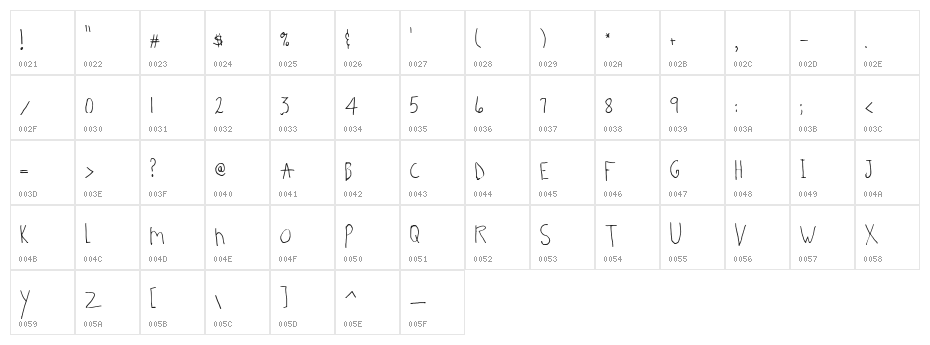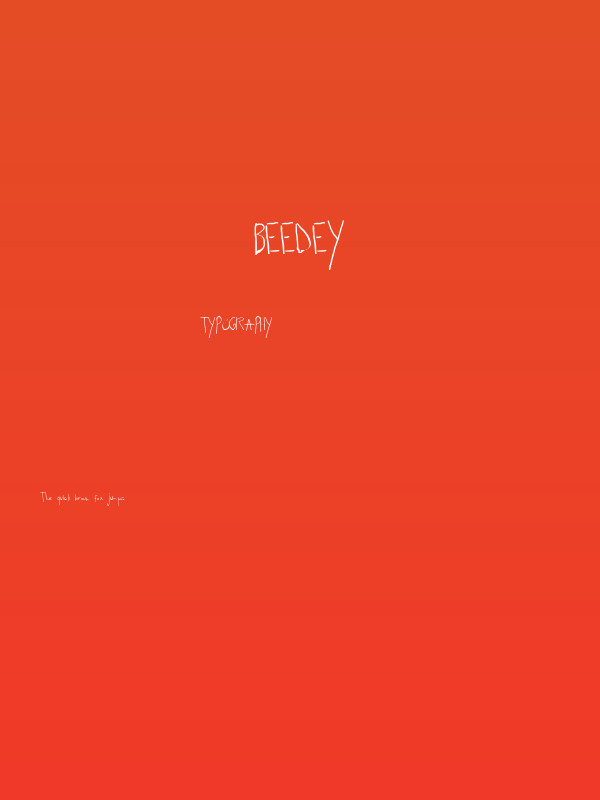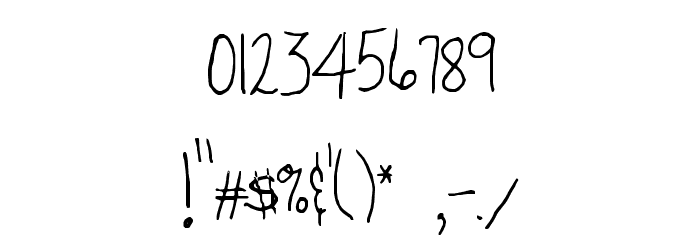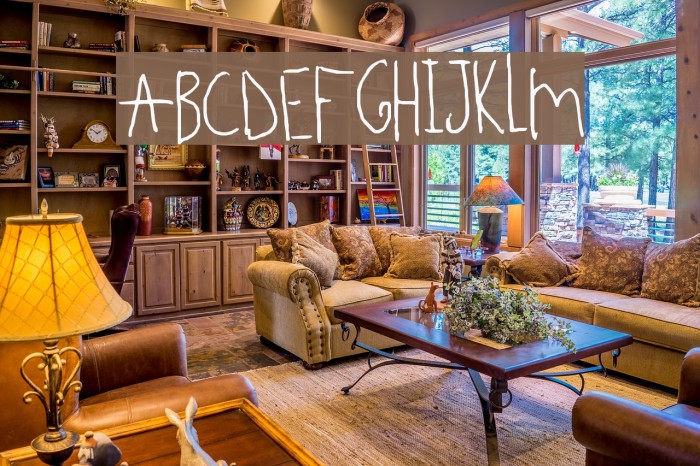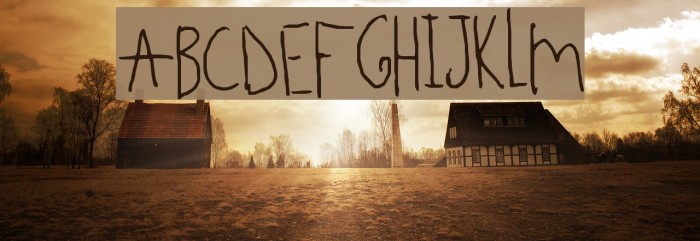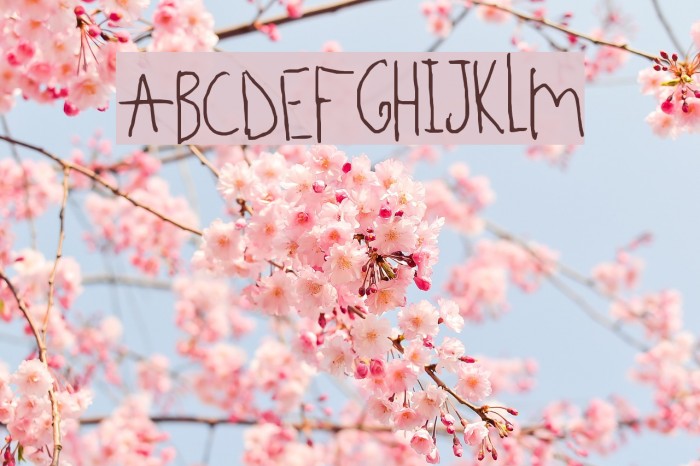
Beedey Font
Beedey Description
This font exudes a playful and casual handwritten style, characterized by its irregular and slightly whimsical letterforms. The strokes are uneven, giving it a natural and organic feel, reminiscent of quick, informal handwriting. The uppercase letters are tall and narrow, while the lowercase letters maintain a consistent flow with occasional loops and curves that add to its charm. Numbers and special characters follow the same playful aesthetic, making it suitable for projects that require a personal touch. The overall appearance is friendly and approachable, ideal for creative and informal applications.
| Overall Style | Casual, Playful |
| Use Case | Headlines, Informal text, Creative projects |
| Proposed Projects | Ideal for greeting cards, children's books, personal blogs, and informal branding. |